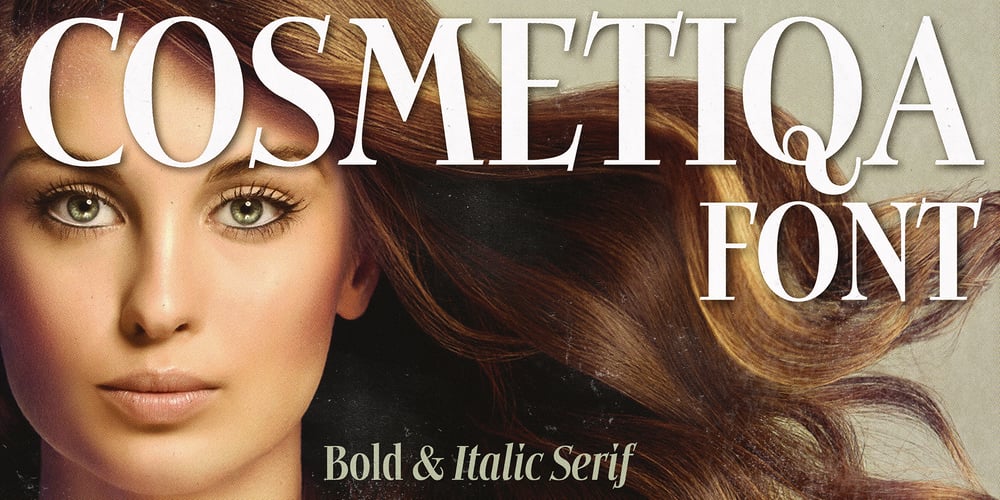
Cosmetiqa Font Family was designed by Mott Jordan and published by Mysterylab. Cosmetiqa contains 2 styles and family package options. Here’s a posh serif typeface and its matching italic. Glowing with elegance, Cosmetiqa can go head to head with classic evergreens like Bodoni, Didot, or Century. And just like those go-to favorites, Cosmetiqa really shines at the huge, layout-dominating sizes which have been a staple of top-shelf fashion branding and magazine design since at least the mid-1980s. You’ll also find this font to be a great workhorse at much smaller sizes and in extended text passages, as the hairline serifs don’t disappear in the smaller size ranges. As its title suggests, Cosmetiqa’s unique look works perfectly in cosmetics and fashion branding, but also try it with 1990s-style message forward ad headline applications if you’re after a retro look with a hint of a modern twist. The semi-condensed proportions and tall x-height make it great for pull quotes, page banners, and logo design.